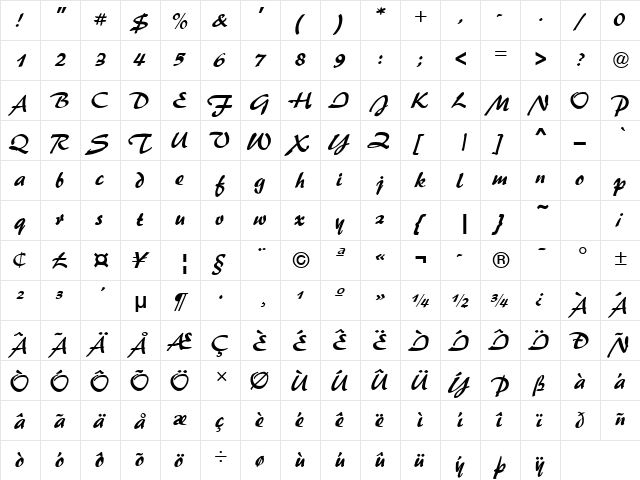
Palette Regular Font Preview
Palette Regular
Design Context for Palette Typeface
Palette takes a measured approach to typography — its balanced proportions and neutral character make it a reliable workhorse for both digital and print work.
Pro Tip: Use Palette in both headline and body roles to test its range before committing to a single application.